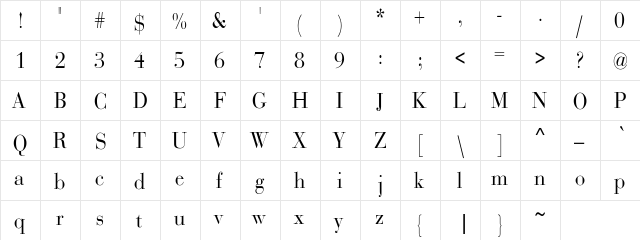
Hensley Condensed-Normal 2 Regular
Design Context for Hensley Condensed-Normal 2 Typeface
Hensley Condensed-Normal 2 offers clean, dependable letterforms without strong stylistic allegiance, making it a practical choice for designers who need flexibility. The condensed width makes it efficient for tight spaces without sacrificing legibility.